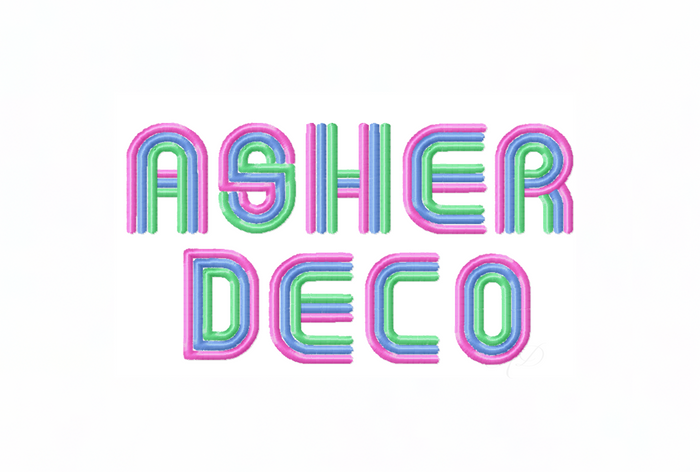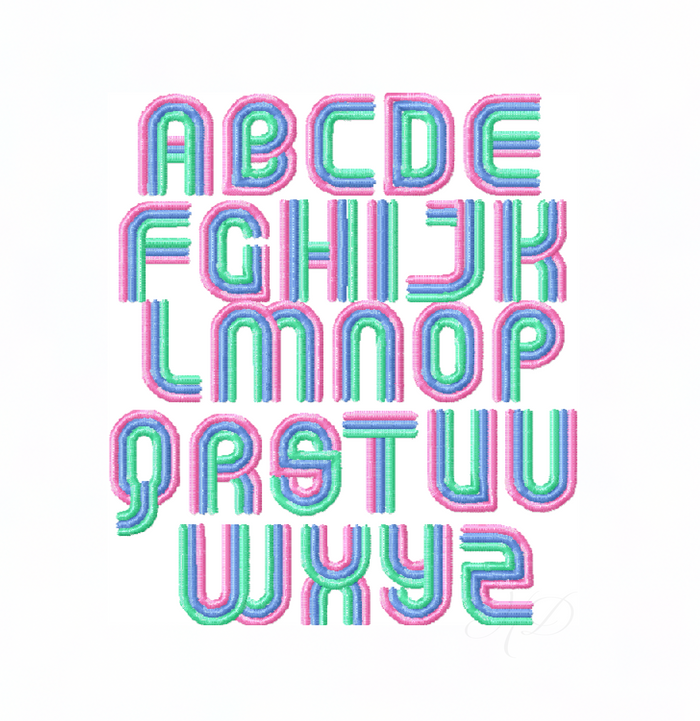
Asher Deco Inline Embroidery Font Small
The Asher Deco Inline Embroidery Font Small is a stunning three-color satin stitch font featuring uppercase letters A-Z. Perfect for adding a personalized touch to your crafting projects, this font enhances your designs with elegance and style.